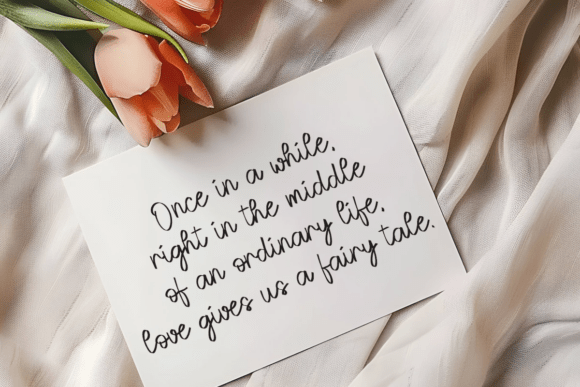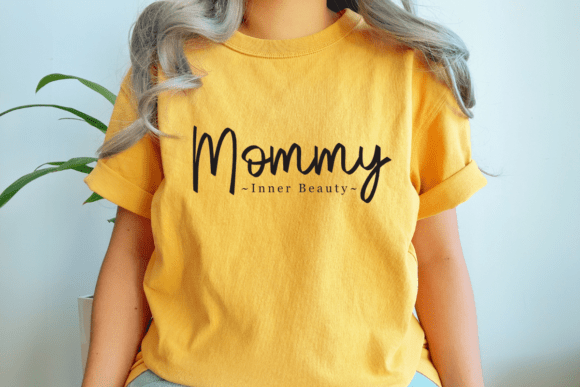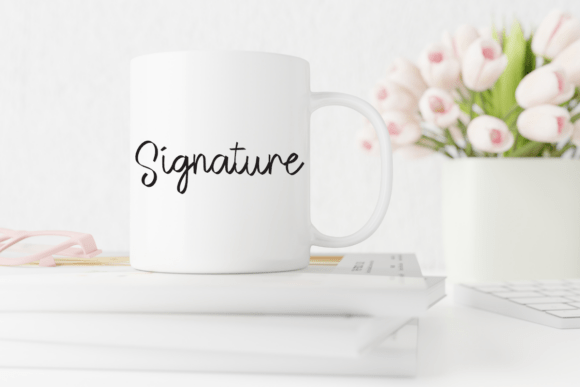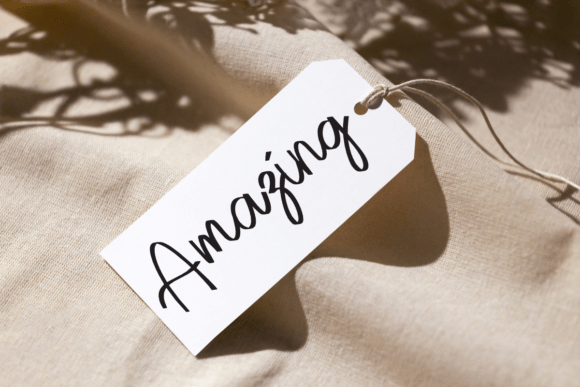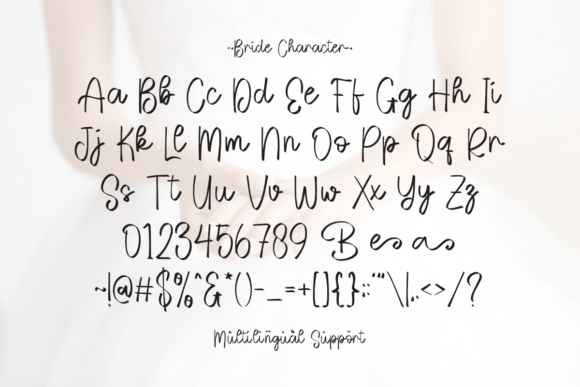
Bride Font: Elevate Your Designs with Elegance and Sophistication
Are you searching for a font that exudes elegance, sophistication, and romance? Look no further than the Bride Font, a modern handwritten script font that is perfectly balanced between luxury and charm. This stunning font is ideal for designers, crafters, and wedding planners looking to add a personal and high-end touch to their creations.
The Perfect Font for Wedding and Bridal Designs
Bride Font is specifically designed with weddings and bridal designs in mind. Its graceful swashes and clean strokes make it perfect for wedding invitations, bridal shower stationery, save-the-date cards, and romantic logos. The font’s timeless aesthetic ensures that your designs will never go out of style, and its luxurious feel will make your clients swoon.
The Bride Font is incredibly versatile and can be used for a wide range of design projects, including:
- Wedding invitations and save-the-date cards
- Bridal shower stationery and decorations
- Romantic logos and branding
- Elegant Cricut projects and DIY crafts
- Love quotes and romantic messages
- Feminine branding and packaging
- Anniversary cards and gifts
- Upscale packaging and event signage
Why Choose Bride Font?
So, what sets Bride Font apart from other fonts? Here are just a few reasons why designers and crafters love this font:
- Elegant and sophisticated: Bride Font is the perfect choice for designers who want to add a touch of luxury to their creations.
- Easy to read: Despite its elegant feel, Bride Font is incredibly easy to read, making it perfect for body text and headlines.
- Customizable: With its range of swashes and alternates, Bride Font can be customized to fit your unique design style.
- Timeless: Unlike trendy fonts that quickly go out of style, Bride Font has a timeless aesthetic that will ensure your designs remain elegant and sophisticated for years to come.
Tips for Using Bride Font
To get the most out of Bride Font, here are a few design tips to keep in mind:
- Pair with complementary fonts: Bride Font pairs beautifully with clean, sans-serif fonts like Arial or Helvetica.
- Experiment with swashes: The swashes in Bride Font can add a touch of elegance to your designs. Experiment with different swash combinations to find the perfect look.
- Use for headlines and titles: Bride Font is perfect for headlines and titles, but can also be used for body text for a more elegant look.
Who Can Use Bride Font?
Bride Font is perfect for a range of designers and crafters, including:
- Wedding planners: Add a touch of elegance to your wedding designs and stationery.
- Graphic designers: Use Bride Font to create stunning logos, branding, and packaging.
- Cricut crafters: Create beautiful DIY crafts and decorations with Bride Font.
- Stationery designers: Add a touch of luxury to your stationery designs and paper crafts.
In conclusion, Bride Font is a stunning and versatile font that is perfect for designers, crafters, and wedding planners looking to add a touch of elegance and sophistication to their creations. With its timeless aesthetic, customizable swashes, and easy-to-read design, Bride Font is the perfect choice for a wide range of design projects. Whether you’re creating wedding invitations, bridal shower stationery, or romantic logos, Bride Font is sure to elevate your designs and leave a lasting impression.